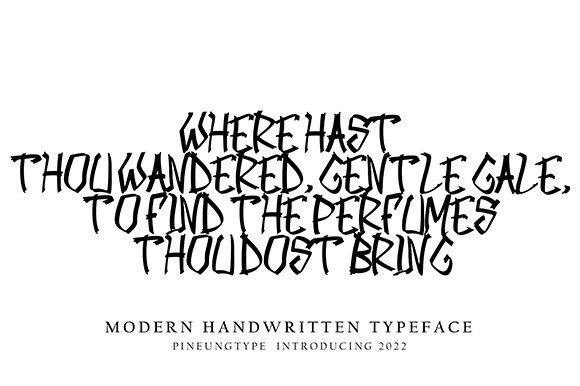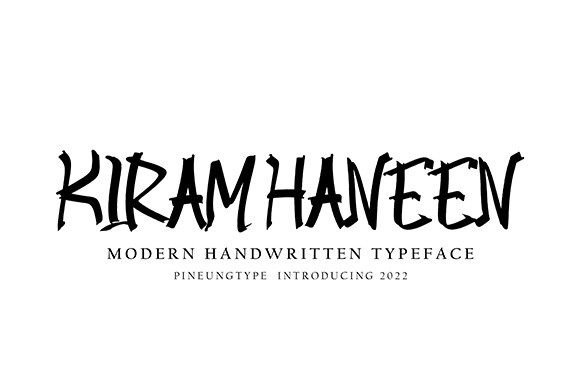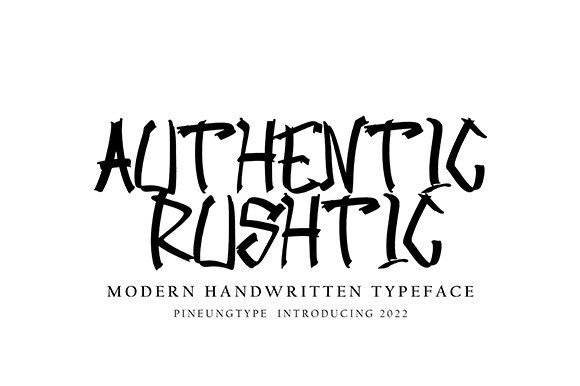
Introduction to Hamster Scare Font
Introducing β€œHamster Scare,” a charmingly messy handwritten font that adds a playful and whimsical touch to your projects.
πŸ‘€ Author Pineungtype & Missinklab
With its quirky strokes and carefree style, Hamster Scare brings a delightful sense of spontaneity to your designs Perfect for adding a touch of personality to invitations, cards, or any creative endeavor where a playful and informal vibe is desired.
Key Features of Hamster Scare Font
Why Choose Hamster Scare Font?
Hamster Scare Font offers exceptional quality and versatility, making it a valuable addition to your design toolkit. Whether you’re creating for personal projects or commercial use, Hamster Scare Font delivers professional results.